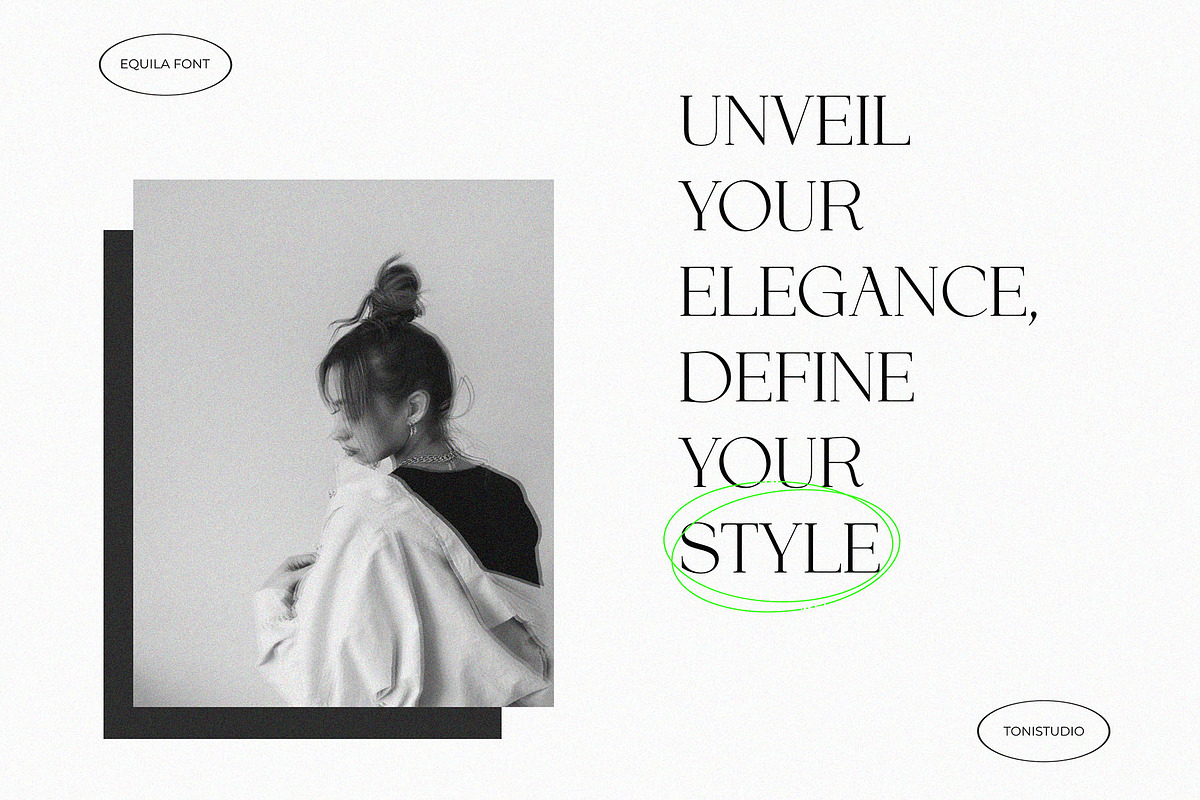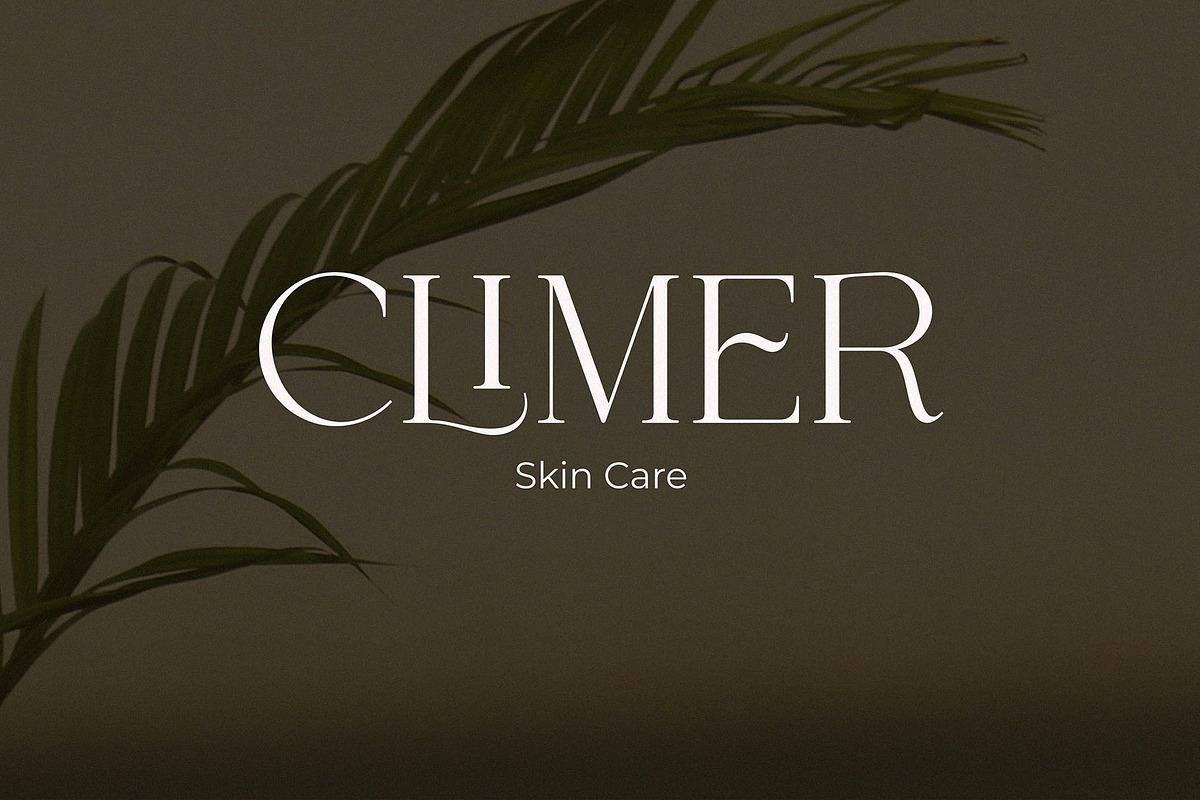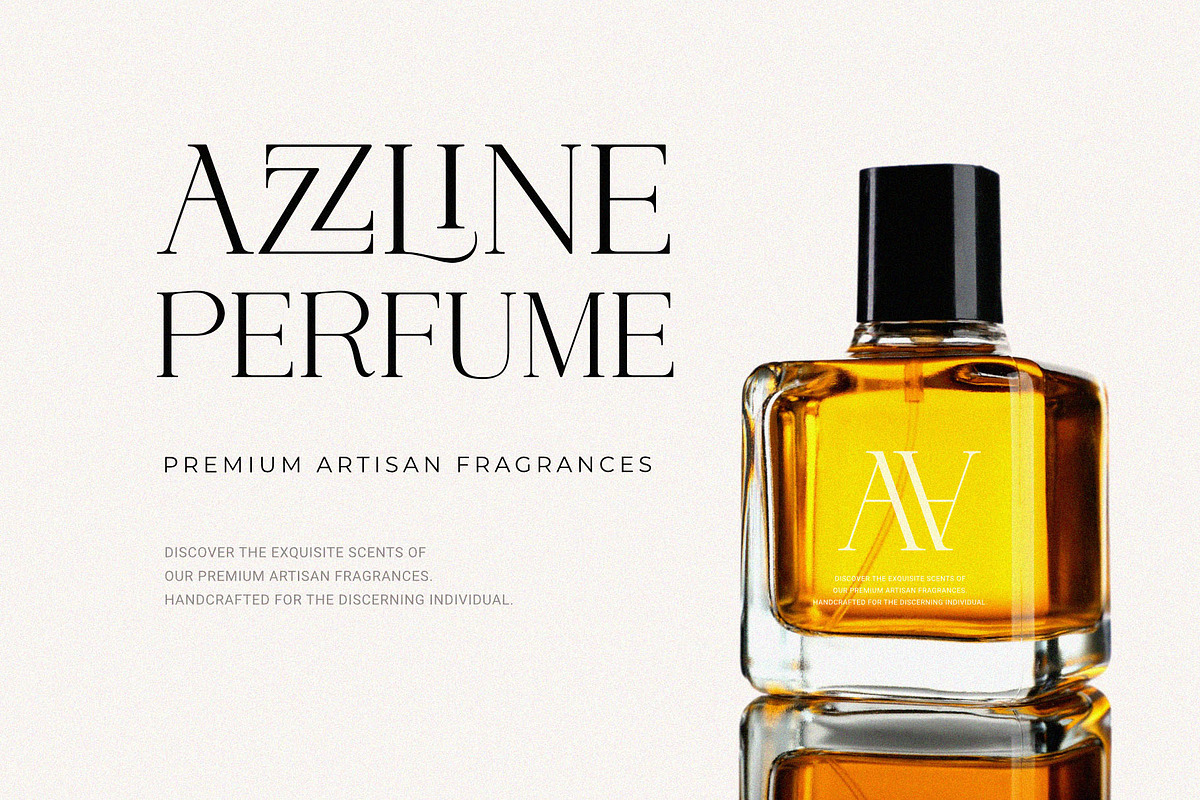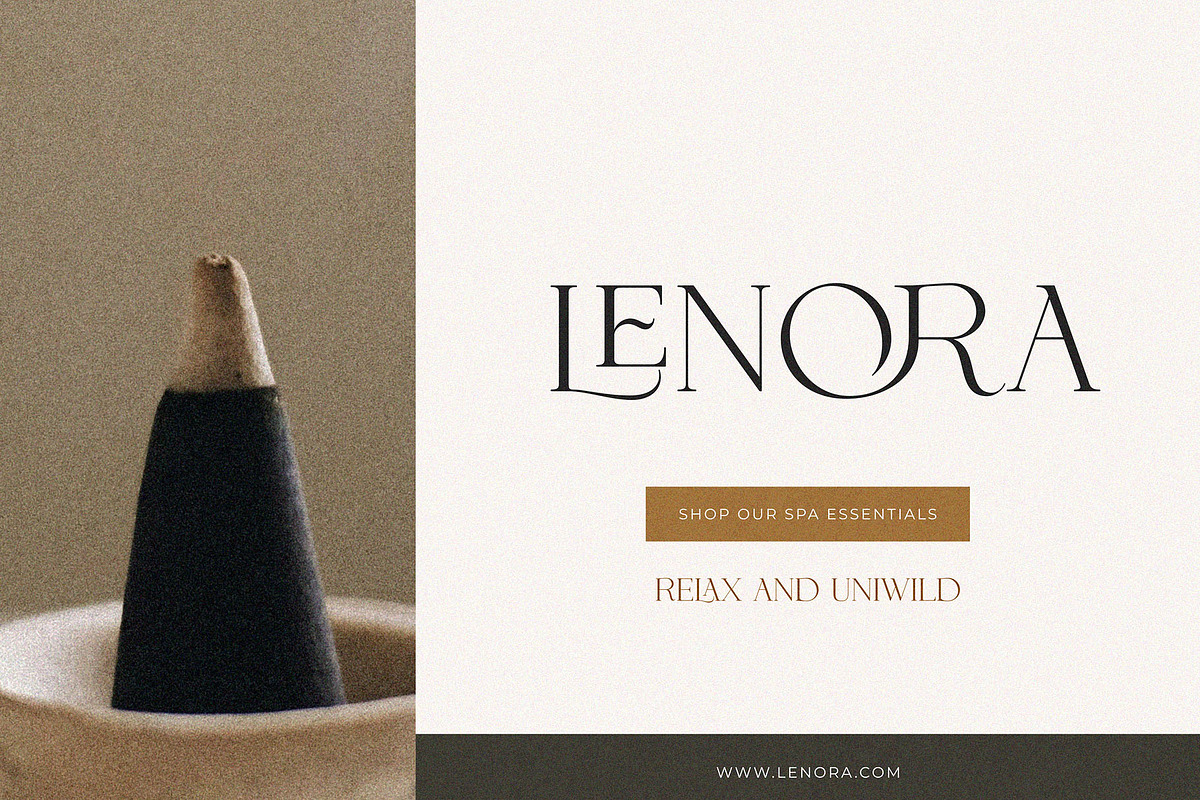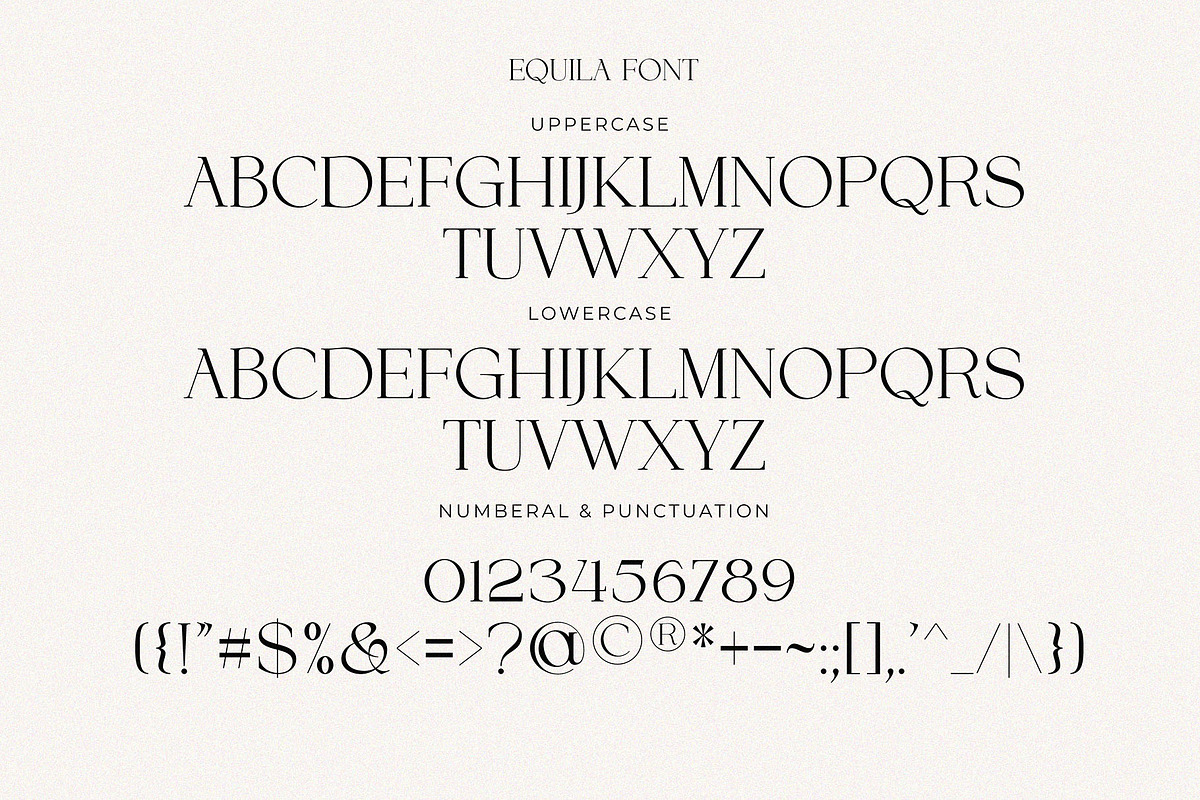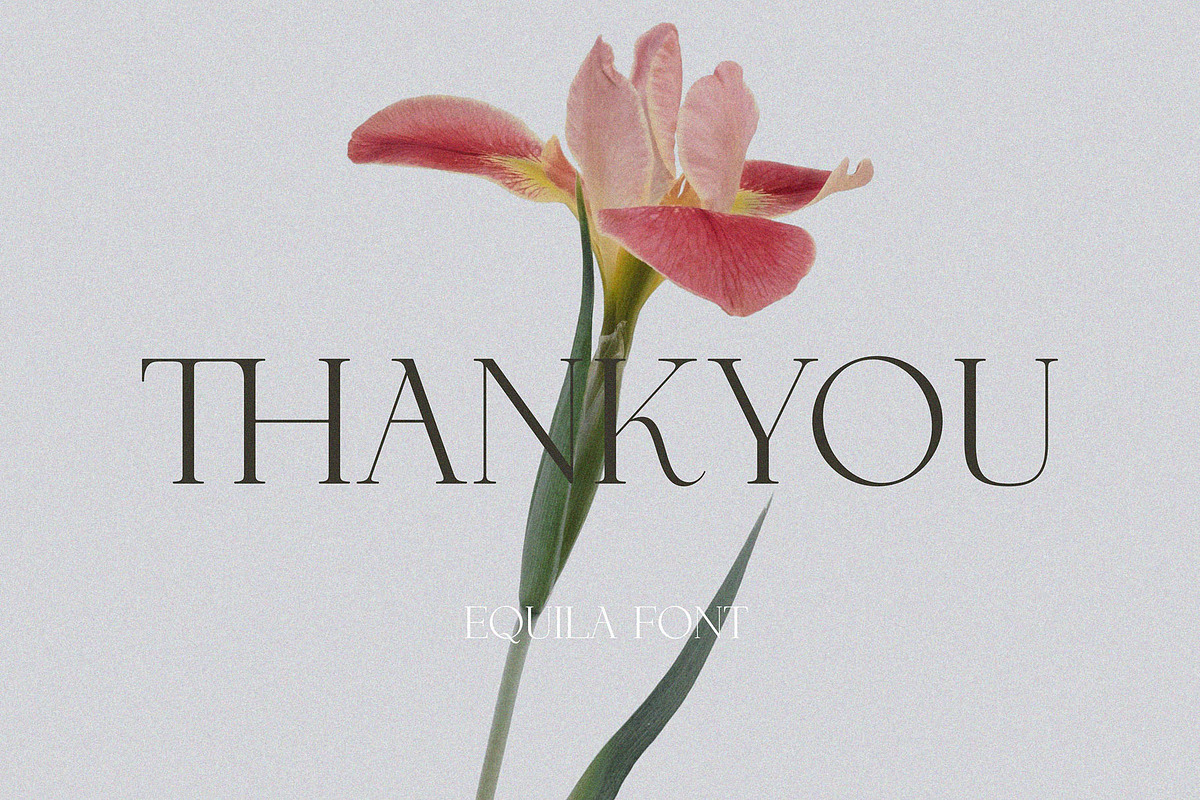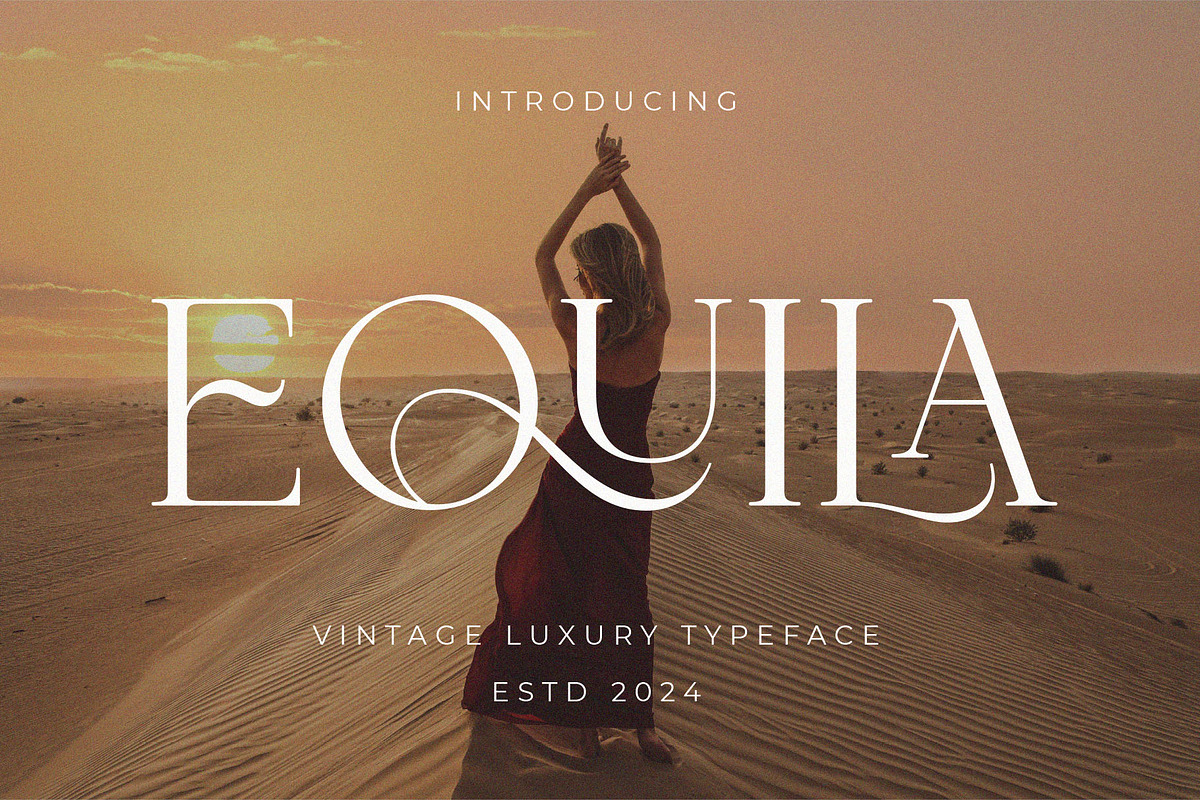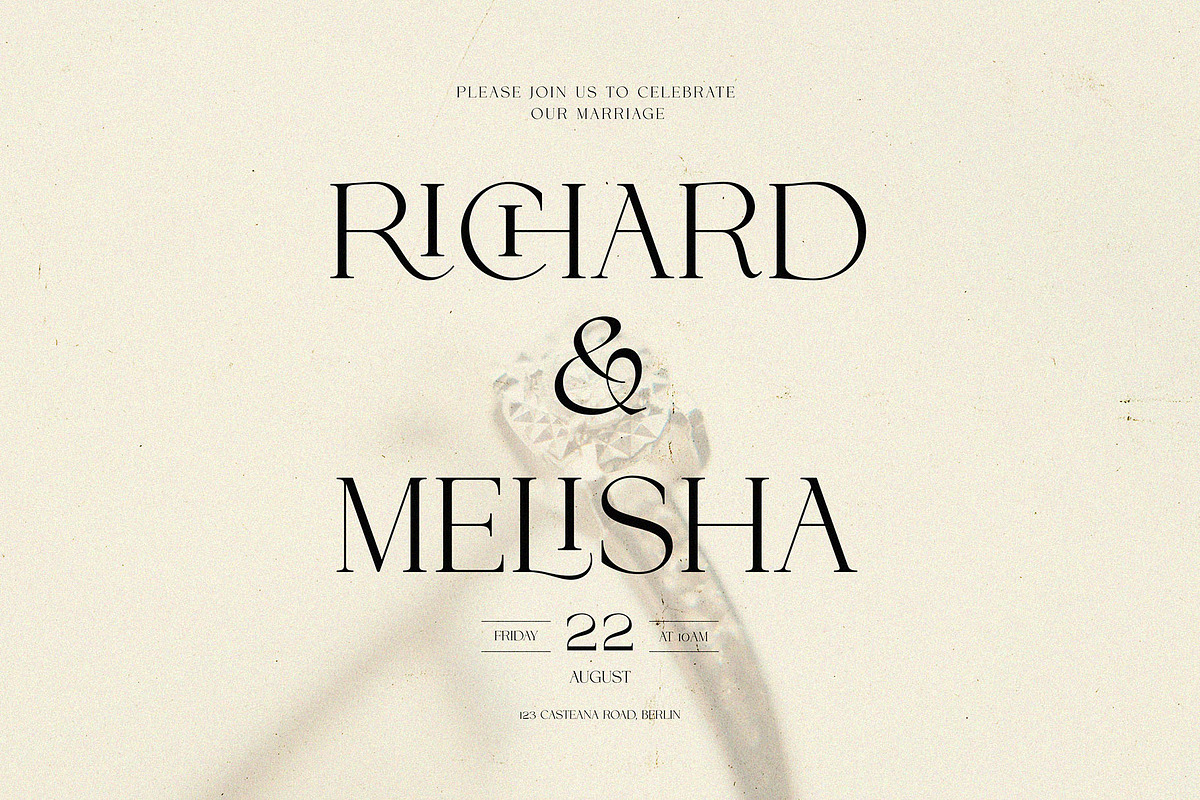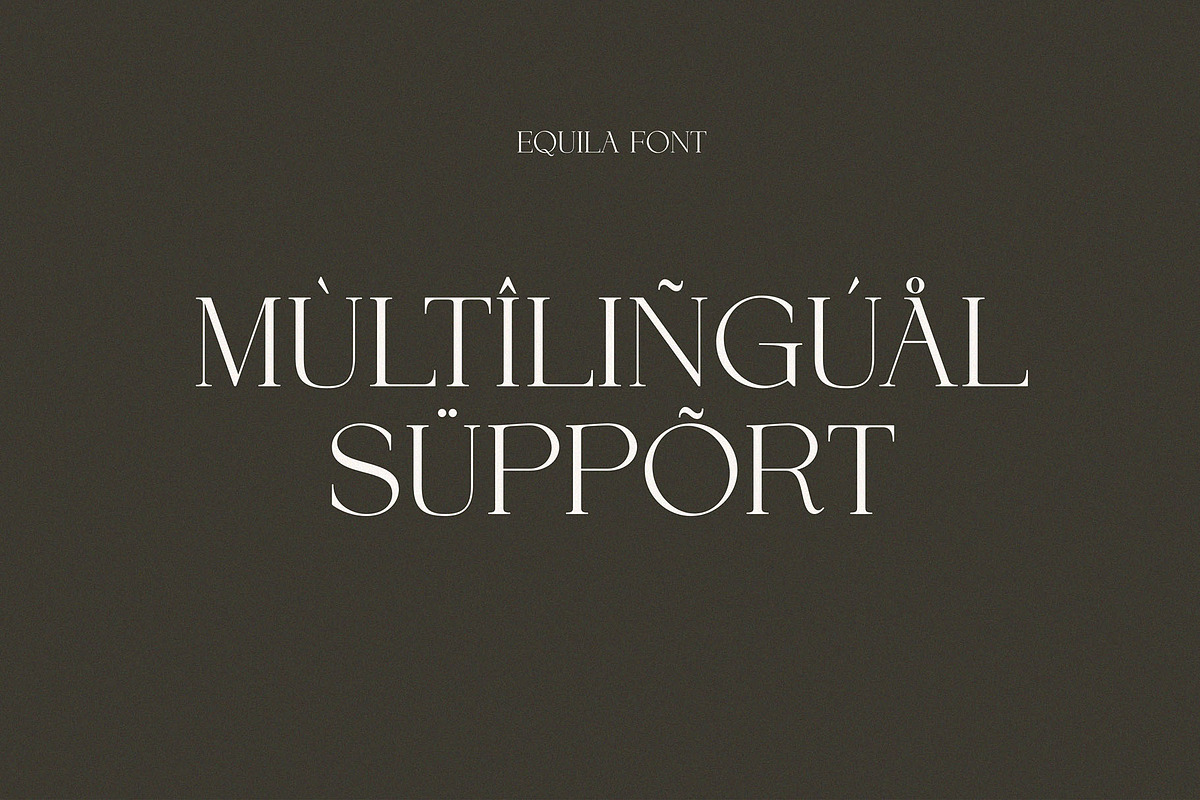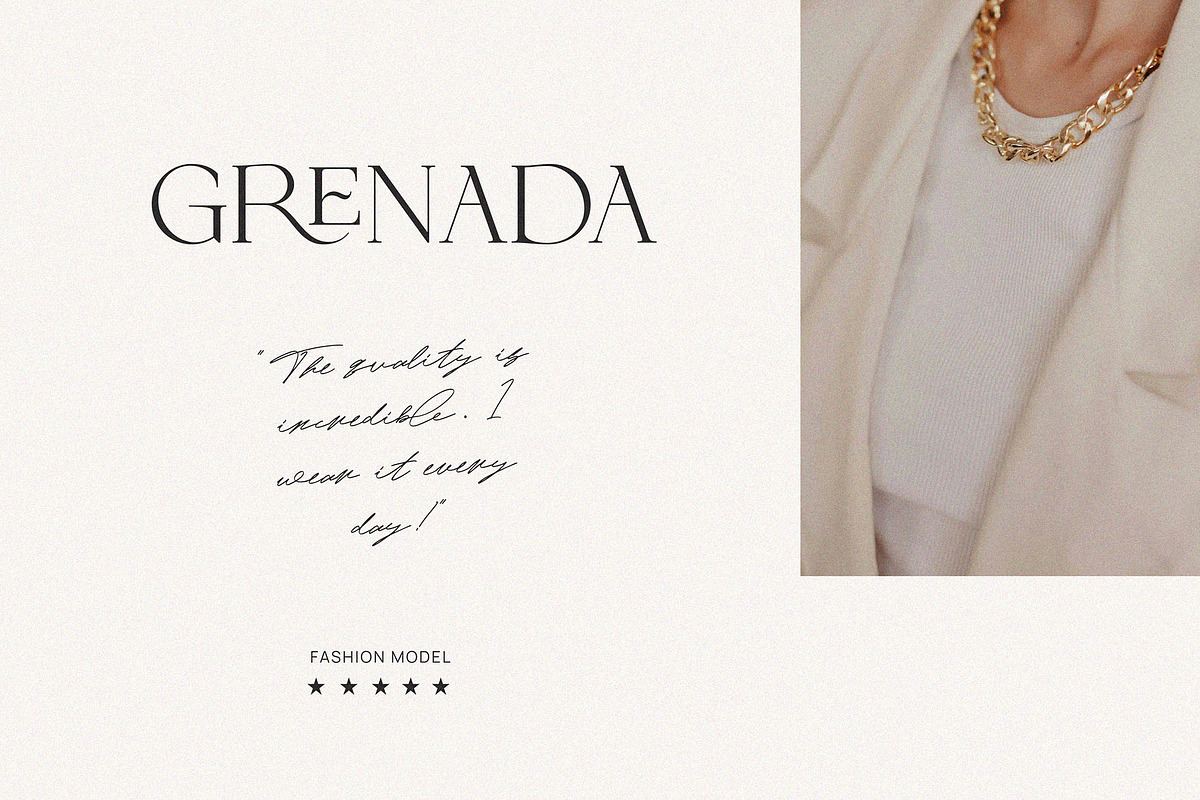
Equila || Display Ligature Serif
Equila font, is a display typeface with high contrast and elegant curves. With beautiful curves, Equila is very attractive and still manages to maintain its classy composition. Including OpenType features and a range of styles makes alternative forms available for users to choose from as they see fit. Suitable for elegant & luxurious logos, classy editorial designs, women's magazines, fashion brands, cosmetic brands, fashion promotions, modern advertising designs, invitation cards, art quotes, home decor, book titles/covers, special events and much more.